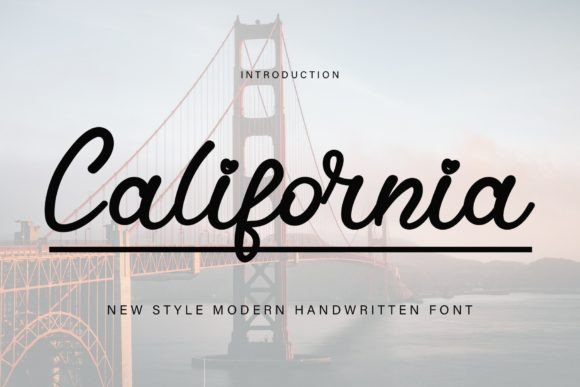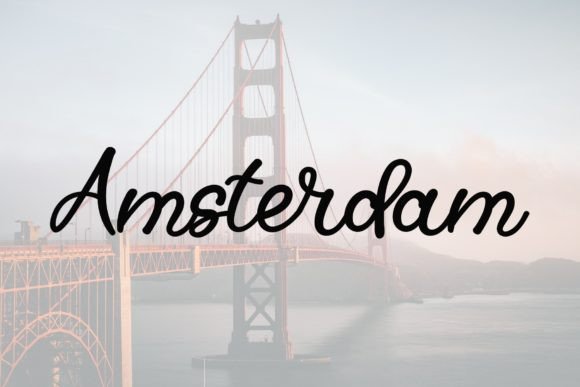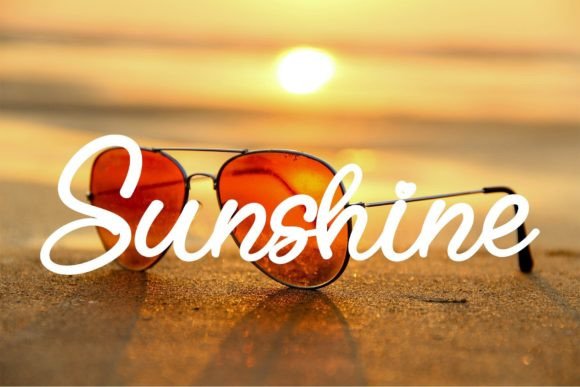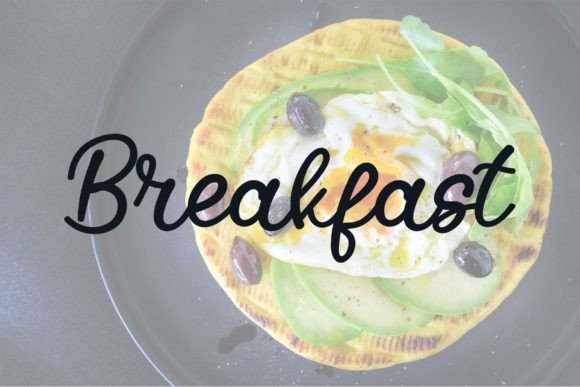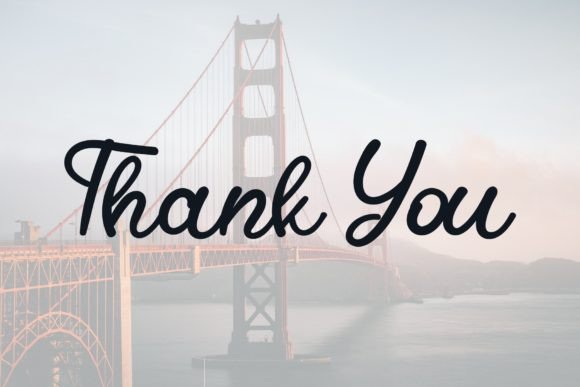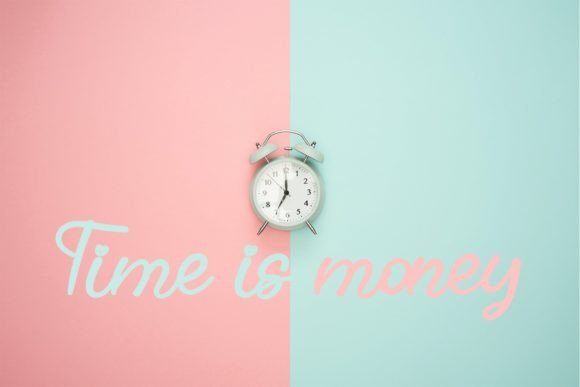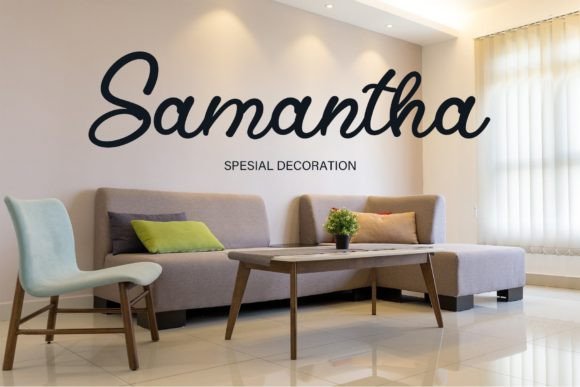
California Font
About California Font
“California” is a vibrant and friendly handwritten font that injects a sense of joy and creativity into your designs. With its playful and casual style, this font can turn any design idea into a true standout, making it perfect for a wide range of creative projects.
The lively and energetic vibe of “California” makes it an ideal choice for designs that aim to evoke happiness and positivity. Whether you’re working on greeting cards, posters, social media graphics, invitations, or any other project that requires a cheerful touch, this font can elevate your design and capture the attention of your audience.
The natural flow and irregularities in the letterforms of “California” give it an authentic handwritten look, adding a personal and approachable feel to your designs. Its versatility allows you to experiment with various colors, sizes, and styles, enabling you to create unique and eye-catching compositions.
One of the strengths of “California” lies in its ability to adapt to different themes and moods. Whether you’re designing for a fun event, a playful brand, or a lively celebration, this font can convey the desired atmosphere with its friendly and inviting appearance.
Embrace the charm of “California” and let your creativity run wild. Use it to infuse your designs with a sense of warmth and friendliness, making them not only visually appealing but also emotionally engaging. By incorporating this font into your projects, you can create lovely and captivating designs that resonate with people and leave a lasting impression.